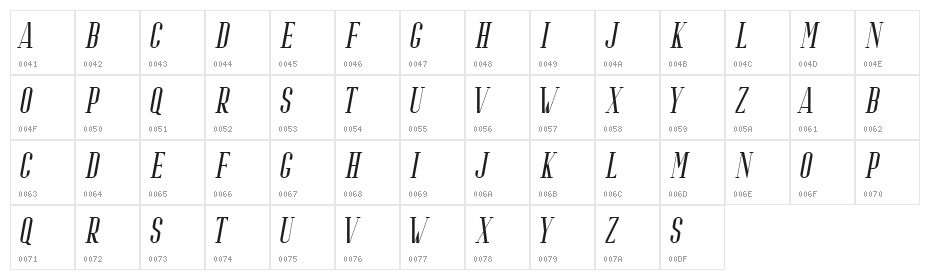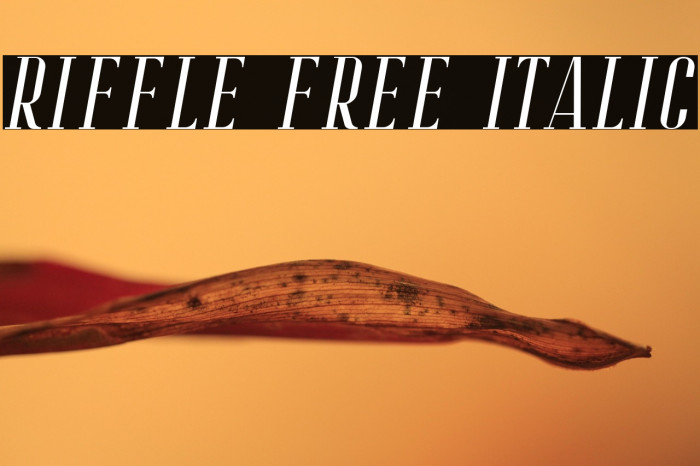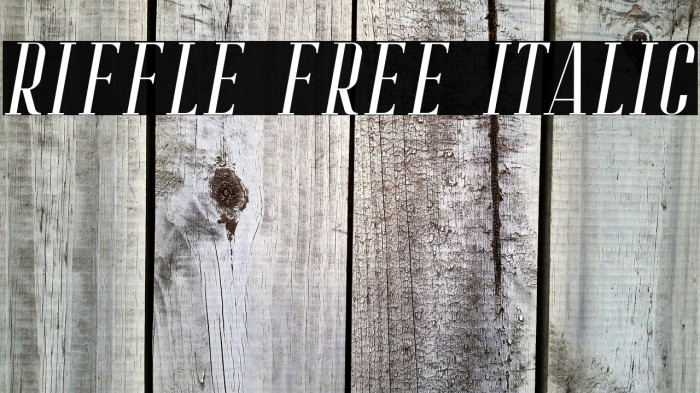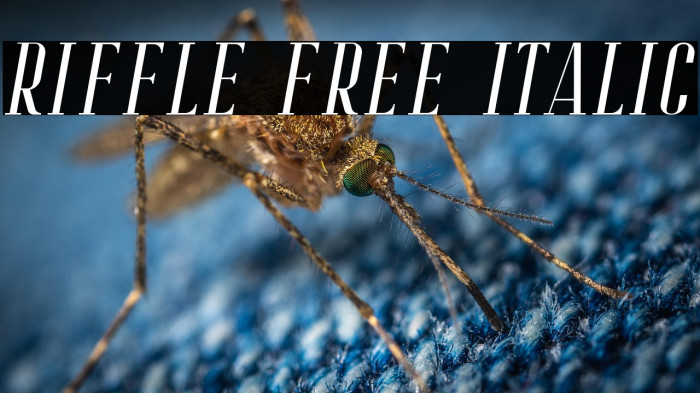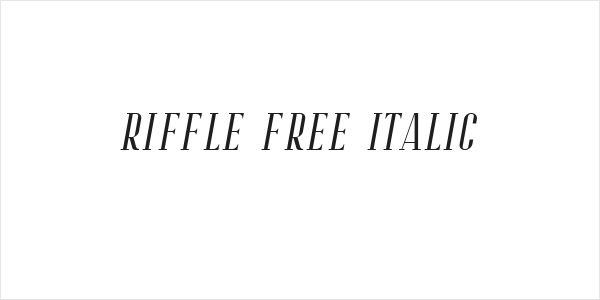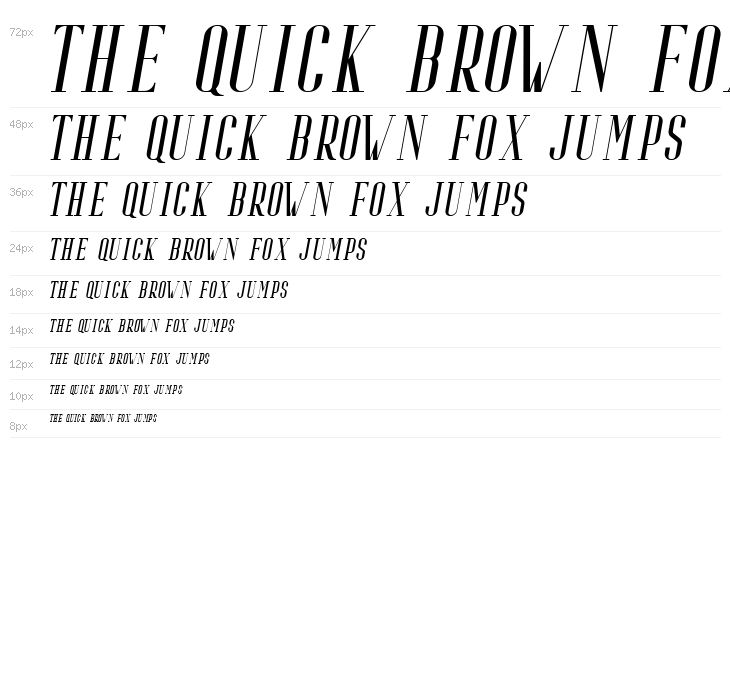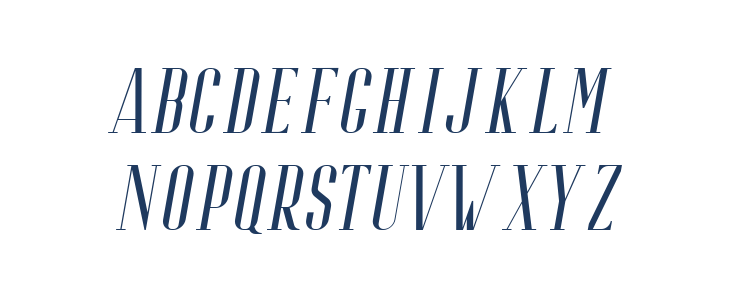
Riffle Free Italic Font
Riffle Free Italic Description
This font features a distinct italic style with elongated, elegant letterforms that convey a sense of sophistication and movement. The characters are slightly condensed, giving a sleek and modern appearance. The strokes vary in thickness, providing a medium contrast that enhances readability while maintaining a stylish flair. The overall design is clean and sharp, making it suitable for a variety of applications where a touch of elegance is desired. The font's italic nature adds a dynamic quality, making it ideal for projects that require a sense of motion or emphasis.
| Proposed Projects | Ideal for fashion magazines, luxury branding, elegant invitations, and sophisticated advertising campaigns. |